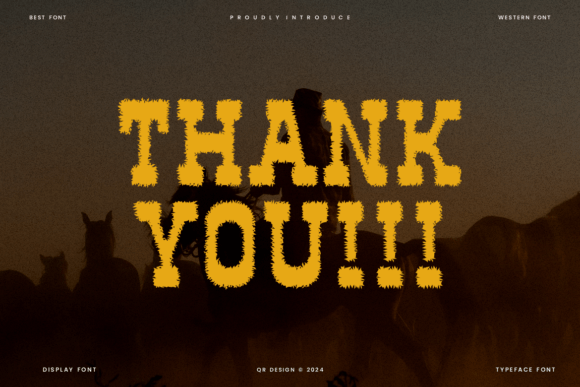
The Wild West of Fonts: Discovering Cowboy Rough
I’ll never forget the design struggle I faced while working on a project for a client’s western-themed restaurant. I was tasked with creating a bold, eye-catching logo that would stand out on signage, menus, and merchandise. As I scoured font libraries, I found myself stuck – nothing seemed quite right. That was until I stumbled upon Cowboy Rough, a bold and assertive slab serif font that instantly caught my attention. In this article, I’ll share my experience with Cowboy Rough, its features, and how to make the most of it in your designs.
An Honest Review of Cowboy Rough
- ✨ Bold and Assertive: Cowboy Rough is not for the faint of heart. Its bold, slab serif design makes a statement, perfect for headlines, titles, and emphasis.
- ✅ Versatile: Despite its strong personality, Cowboy Rough adapts well to various design contexts, from rustic to modern themes.
- 💡 OpenType Features: This font comes with a range of OpenType features, including glyphs and stylistic alternates, allowing for creative experimentation.
While Cowboy Rough is an excellent font, it’s not without its quirks. For instance:
- 🤔 Legibility at Small Sizes: Due to its bold nature, Cowboy Rough can become difficult to read at very small font sizes. It’s best used at larger sizes where its impact can shine.
- ⚠️ Limited Online Use: While suitable for digital media, Cowboy Rough’s boldness can make it less ideal for body text or extensive online content.
If you’re looking for fonts with a similar vibe to Cowboy Rough, consider these alternatives:
- Playfair Display: An elegant, luxurious font perfect for headlines. It’s got a bit of sophistication that works well for high-end branding.
- Raleway: A versatile font with a range of weights. It’s great for designs that need a bit of elegance but still want a strong presence.
- Rockwell: A classic slab serif font that’s similar in some ways to Cowboy Rough but with a more refined feel.
- Bebas Neue: A bold, modern font that’s perfect for titles and headings. It has a strong personality, similar to Cowboy Rough but with a more contemporary look.
The Backstory of Cowboy Rough
Cowboy Rough was designed with the intention of capturing the rugged, untamed spirit of the American West. Its creator wanted a font that could stand up to the boldest statements, whether on a wanted poster or a whiskey label. Inspired by vintage typography and the unyielding landscape of the Wild West, Cowboy Rough brings a piece of history to your designs.
Q: Is Cowboy Rough suitable for body text?
A: While Cowboy Rough is stunning for titles and headings, it’s not ideal for extensive body text due to its boldness and potential readability issues at smaller sizes.
Q: Does Cowboy Rough support OpenType features?
A: Yes, Cowboy Rough comes with OpenType features, including glyphs and stylistic alternates, allowing for creative flexibility in your designs.